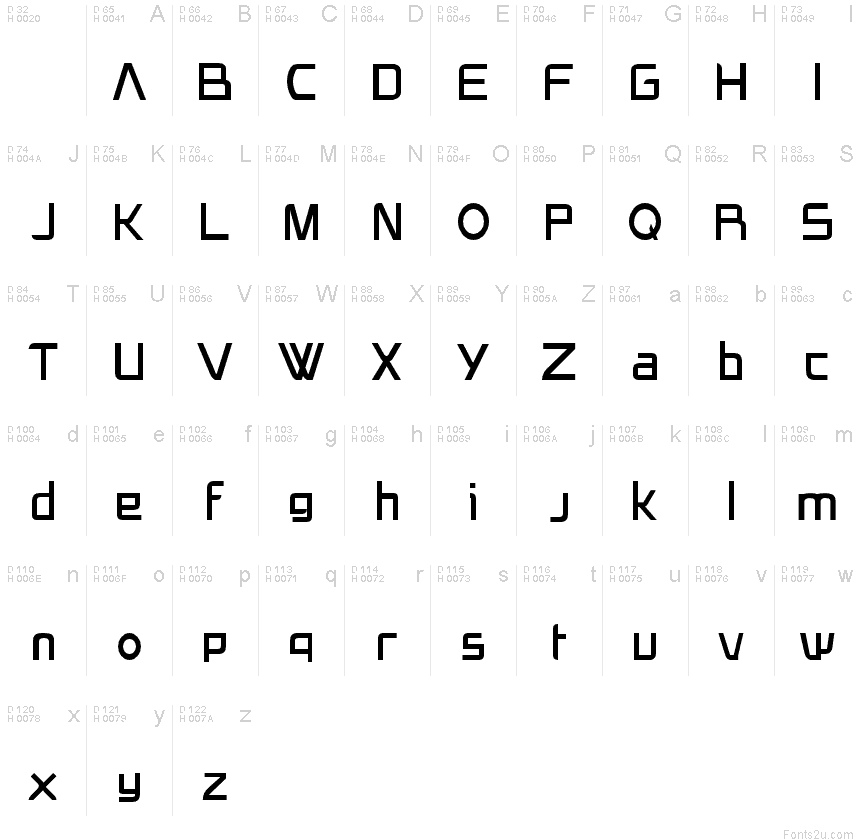
HELIOS is a free techno display font with broad, architectural letters and a distinctly futuristic profile. Rounded bowls meet squared arches and clipped joins, creating a continuous, engineered silhouette that feels drawn for a machine interface rather than ordinary signage.
Its tubular curves and open geometric shapes can echo circuit diagrams, spacecraft panels, and streamlined product photography, making it useful for science-fiction posters, game graphics, and electronics packaging. It is strongest in a logo or title treatment, where the unusual connections and stretched proportions can become the central piece of a technology brand's imagery.
HELIOS